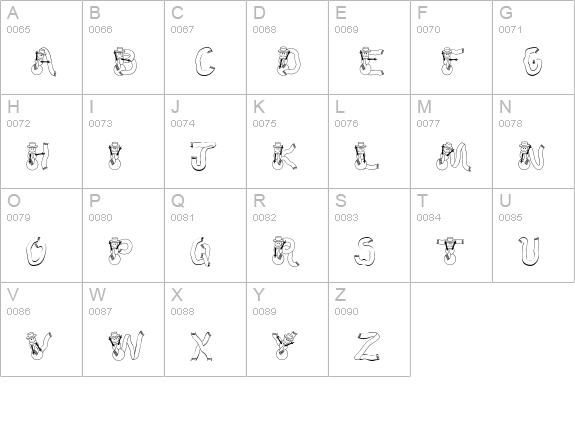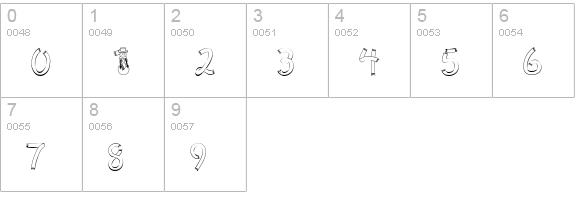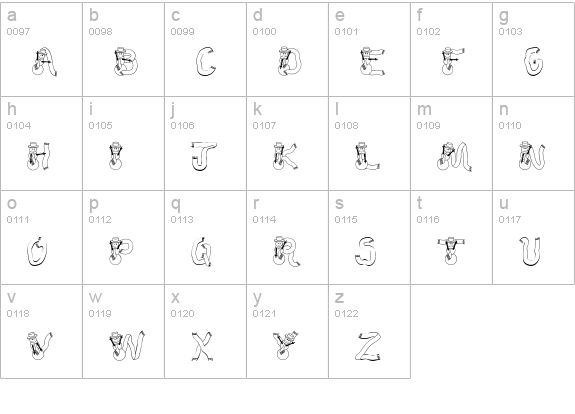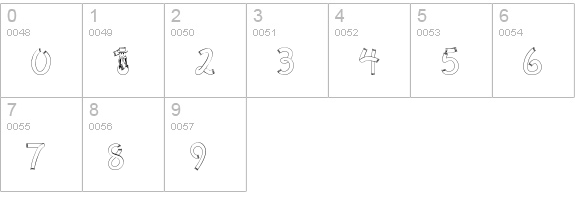
CK Snowman Font Details
The CK Snowman font is a charming and whimsical typeface that brings a touch of winter magic to your projects. With its playful snowman-inspired letterforms, this font is perfect for adding a festive and lighthearted feel to your designs. Whether you're creating holiday cards, party invitations, or winter-themed graphics, CK Snowman is sure to bring a smile to your audience's faces. Best of all, CK Snowman is available for free download at FontsMarket.com. Simply visit the website and start using this delightful font in your projects today. Embrace the holiday spirit and let CK Snowman add a touch of frosty fun to your designs!